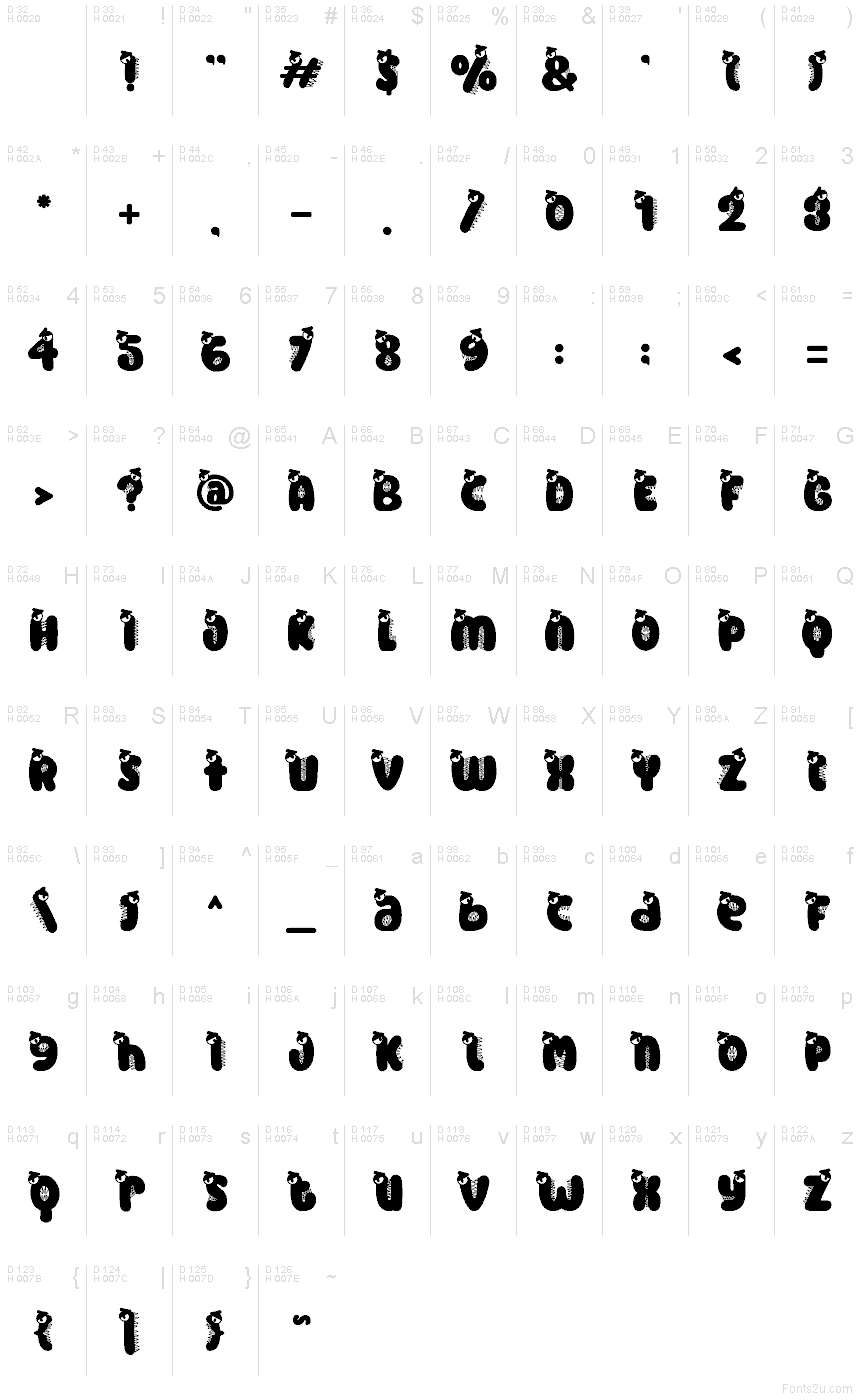
Monster Mash Monster 2
Monster Mash Monster 2 font by PutraCetol Studio is a bold decorative display font with both dark and whimsical vibes. A quirky design, playful curves, ornate details, and other decorative elements all come to together to make this typography that’s full of character.